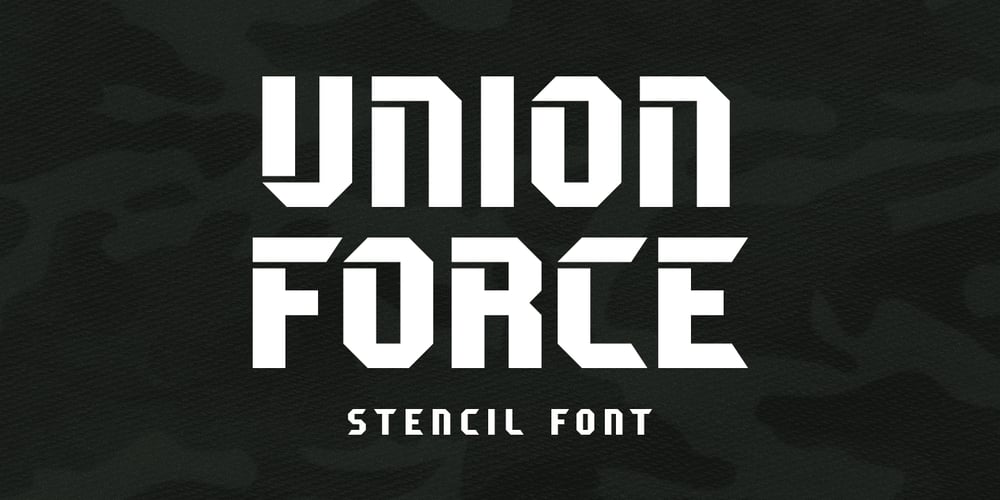
Unione Force
Unione Force font
Unione Force Font Family was designed by Abdul Malik Wisnu and published by Almarkha Type. Unione Force contains 2 styles and family package options. Union Force is a Stencil Display Sans Military style font, first conceptualize was inspired by the classic vintage military stencil design.I wanted a typeface that could be a solid base for any military inspired project Union Force Fonts can be used for wallpaper, pattern fills, web page background, surface textures. Perfect for making army posters , scrapbooking,invitation cards, label stickers, stationary, gift wrap, packaging, clothes, buttons, pendants, holiday gifts, print on fabrics and so much more.